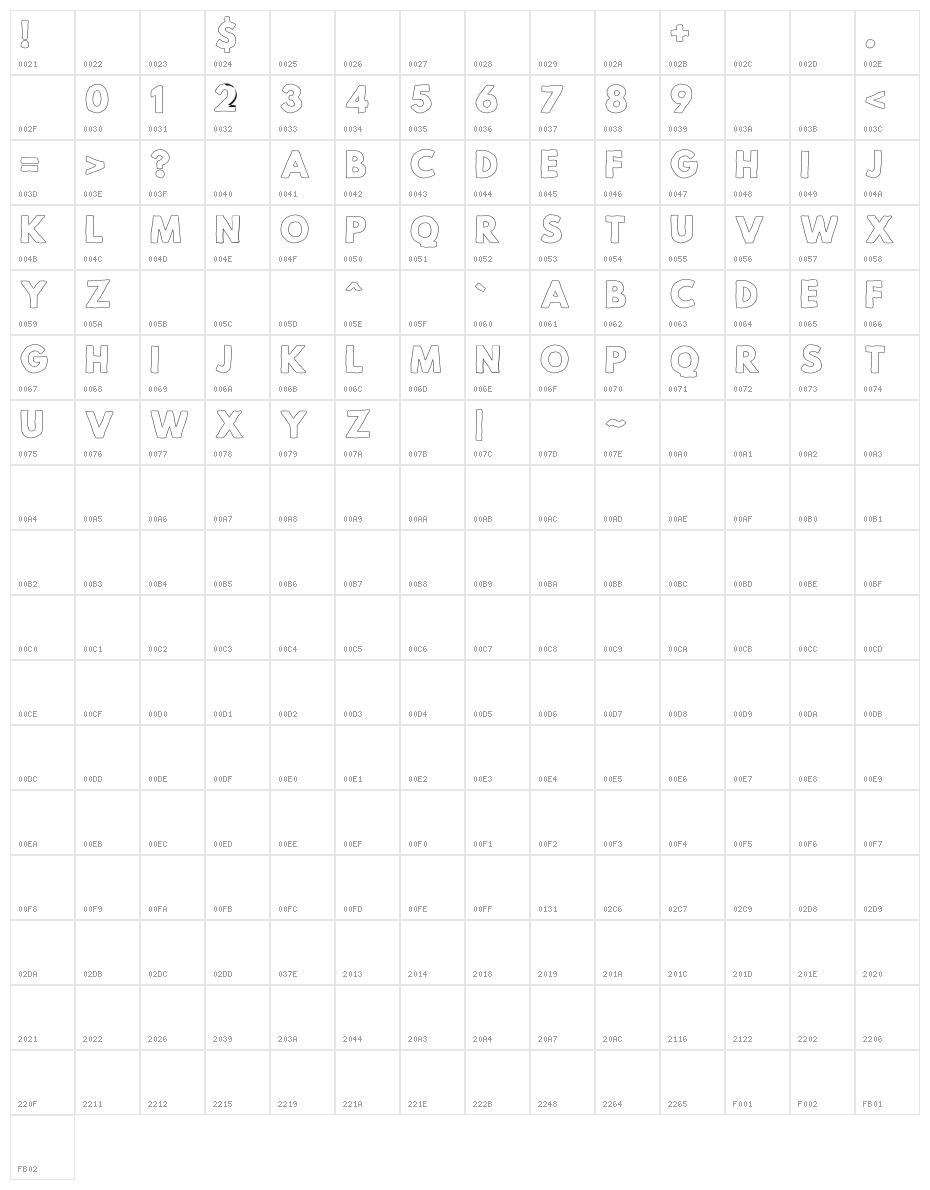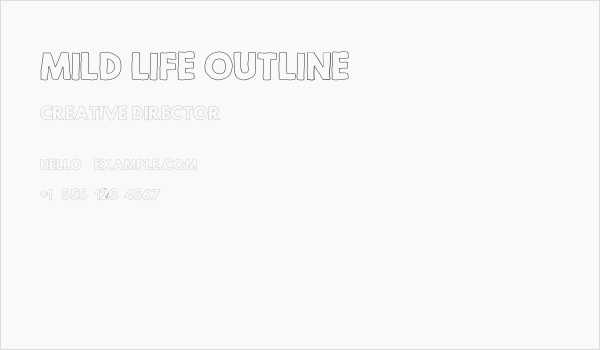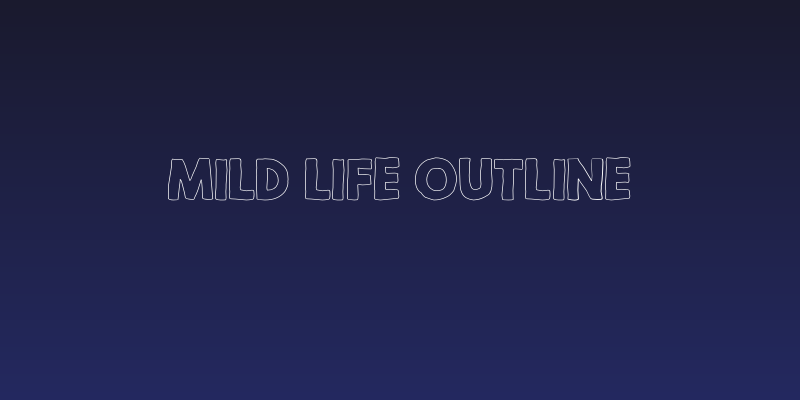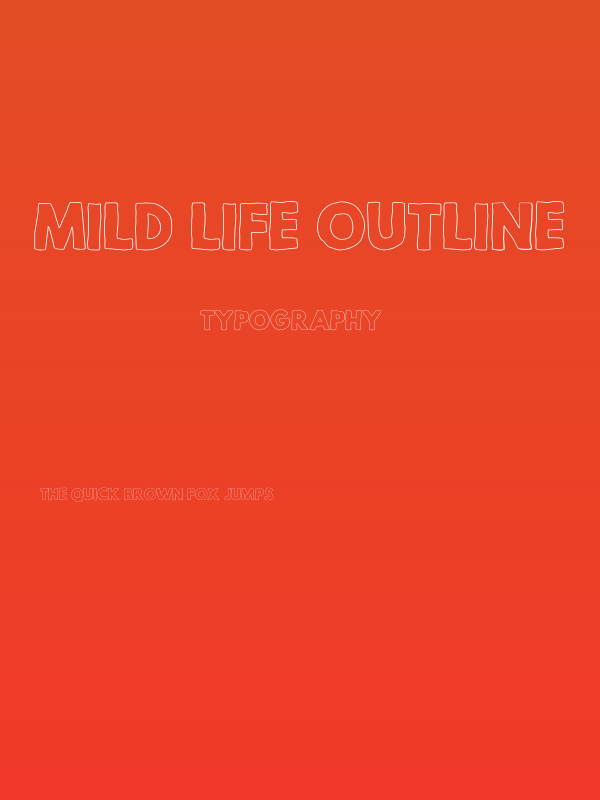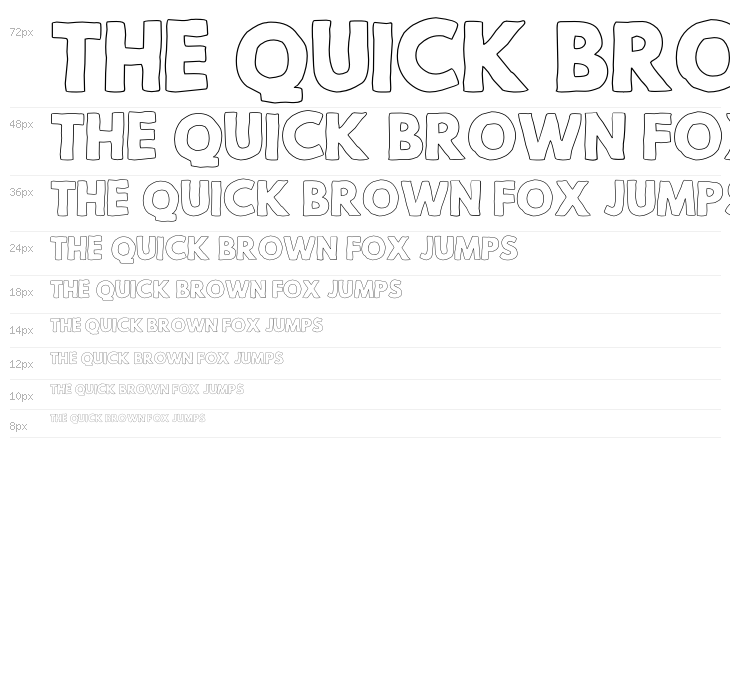
Mild Life Outline Font
Mild Life Outline Description
This font features a playful and bold outline style, characterized by thick, uniform strokes that form the outer edges of each character. The letters are uppercase and have a rounded, friendly appearance, making them highly legible and visually appealing. The numbers and special characters follow the same design, ensuring consistency across the entire set. The font's outline nature gives it a unique, eye-catching look that stands out in any design. Its simplicity and boldness make it suitable for a variety of creative projects.
| Overall Style | Playful, Modern |
| Proposed Projects | Ideal for children's books, posters, logos, and playful branding materials. |